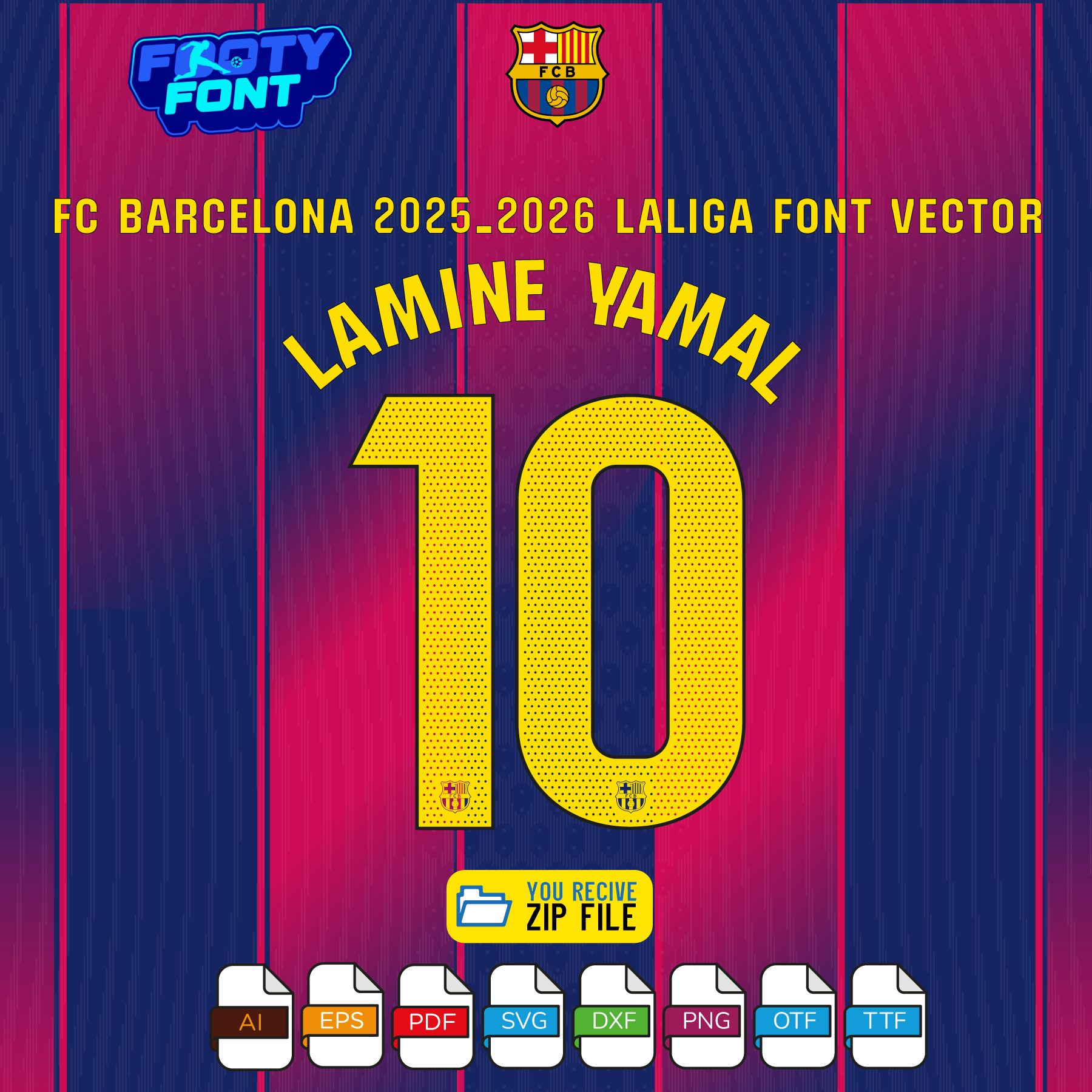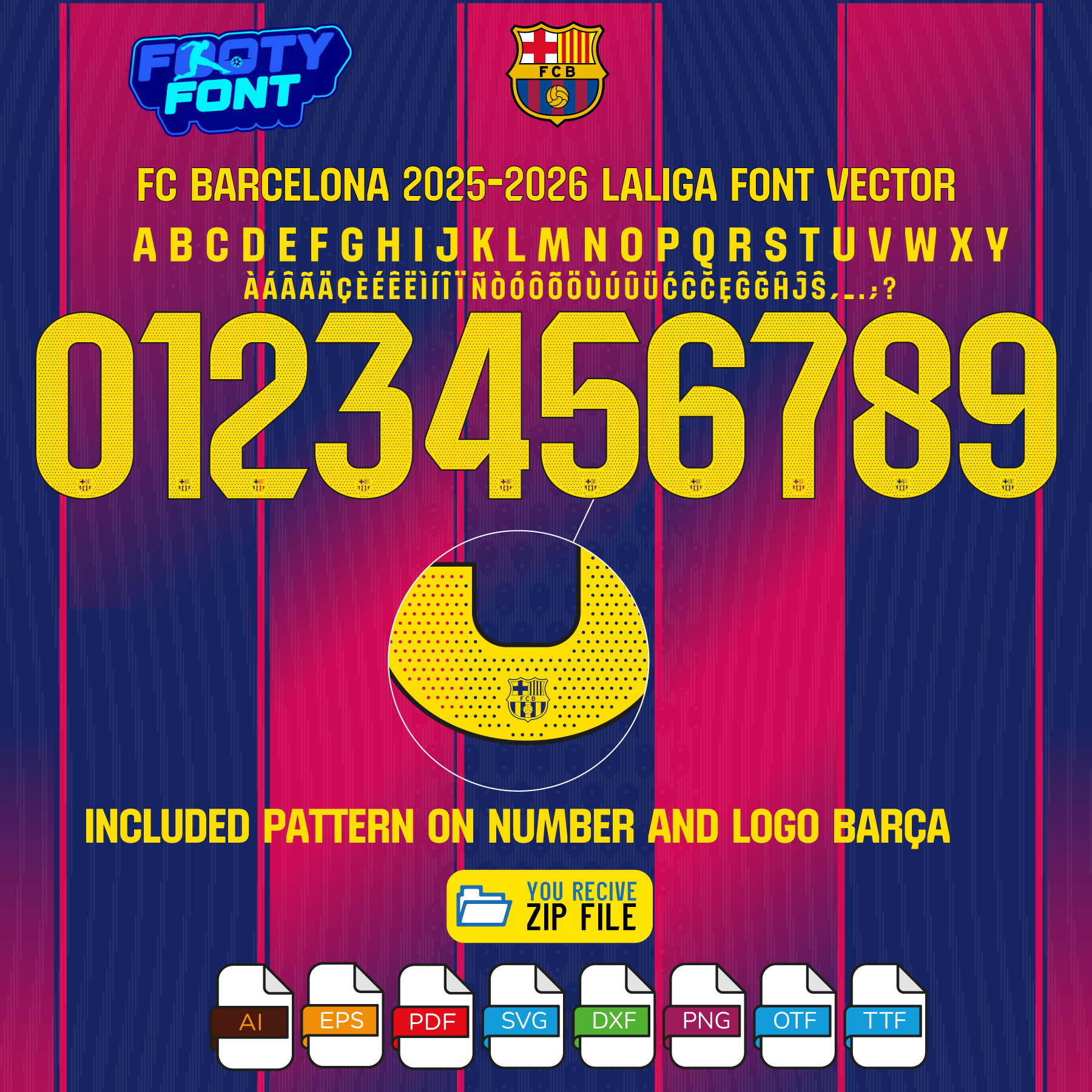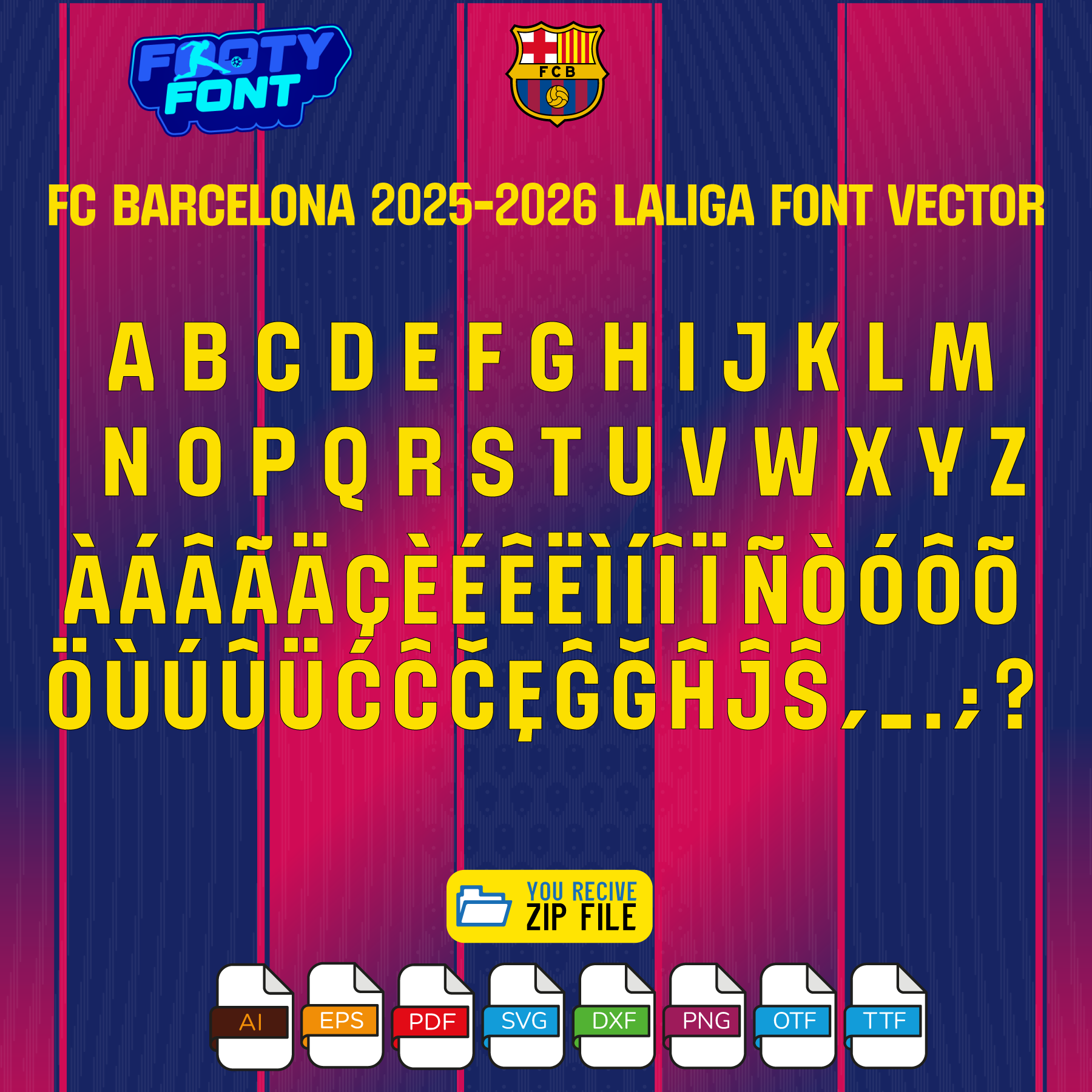
About the FC Barcelona 2025-2026 Football Font
Bring the authentic domestic league style of the Blaugrana to your designs with this font, inspired by the FC Barcelona 2025-2026 LaLiga home kit. This is the high-quality typeface designed to replicate the look of the unified font mandated by LaLiga for all teams in the Spanish league.
This font captures the style worn by the world-class new generation of La Masia graduates like Lamine Yamal, Gavi, and Pedri. It’s perfect for fans creating their own custom jersey designs for personal use, digital posters celebrating a league victory, or any other project that shows your support for Barça.
Use this font to bring the Blaugrana style into your designs—whether for custom jersey graphics, fan merchandise, posters, or social media content.
Fan-made FC Barcelona 2025-2026 LaLiga font showing the complete alphabet and numbers for the home kit.
FC Barcelona Font LaLiga 2025-2026 Home Kit